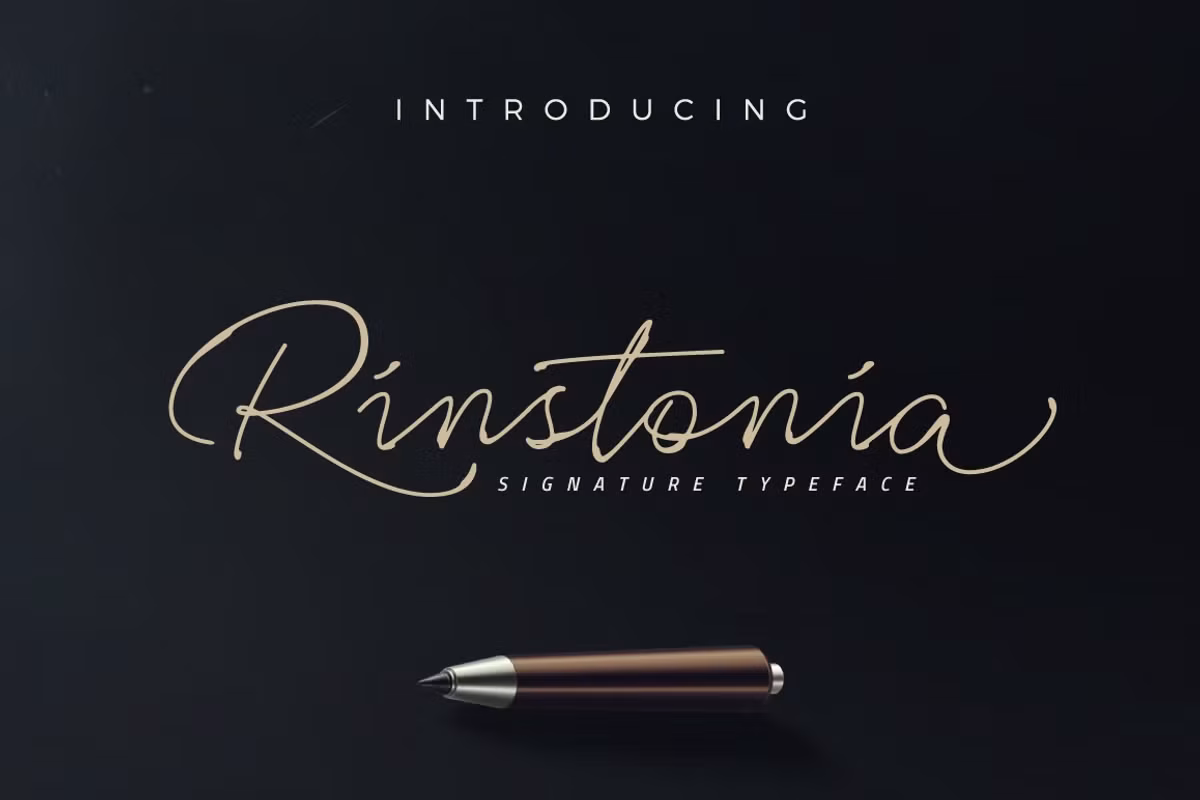
Rinstonia Signature Font Free Download is a stylish and elegant handwritten script typeface designed to mimic the flow and grace of a personal signature. With its smooth, flowing strokes and refined details, Rinstonia is perfect for branding, wedding invitations, photography logos, social media graphics, and other projects that require a sophisticated, handwritten touch.
Rinstonia Signature Font Free Download brings a sense of personal elegance and authenticity to your typography, ideal for any design where a more intimate, professional appearance is needed. Whether you're creating a logo, signature, or unique brand identity, Rinstonia will add sophistication and style to your project. Download it today and elevate your design with the elegant simplicity of Rinstonia.